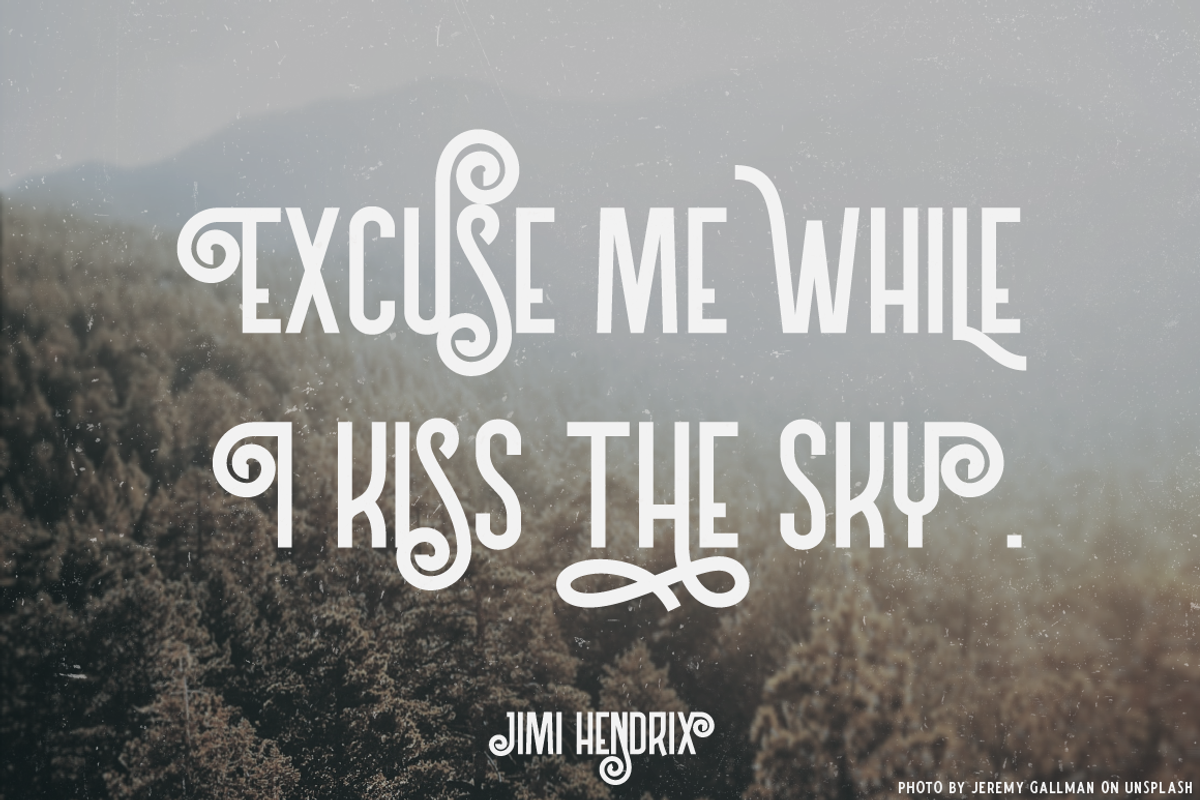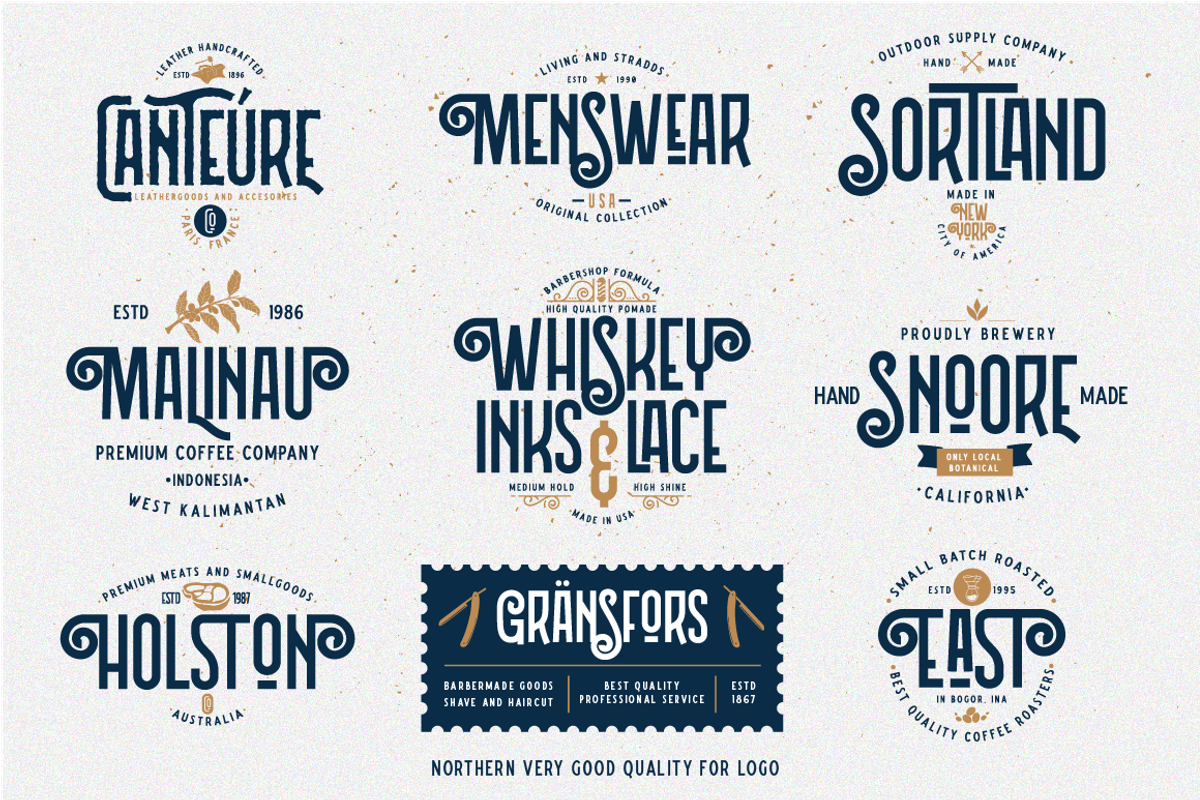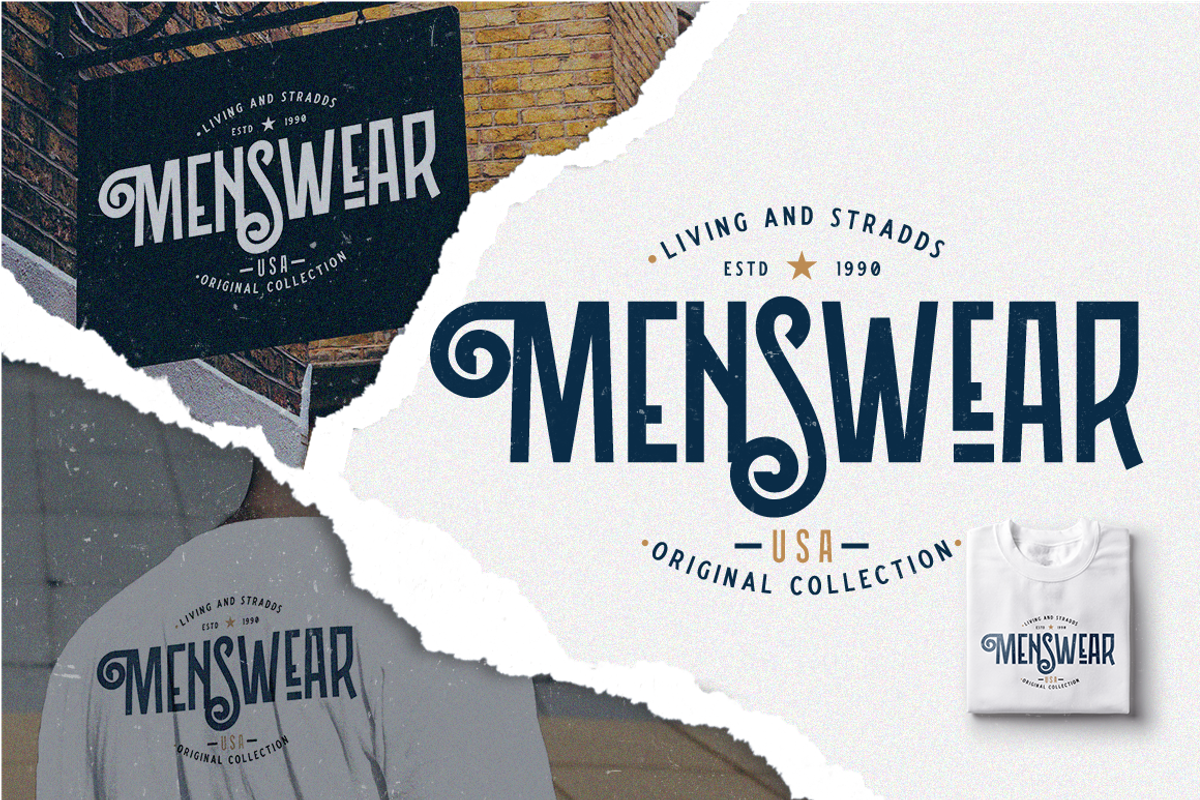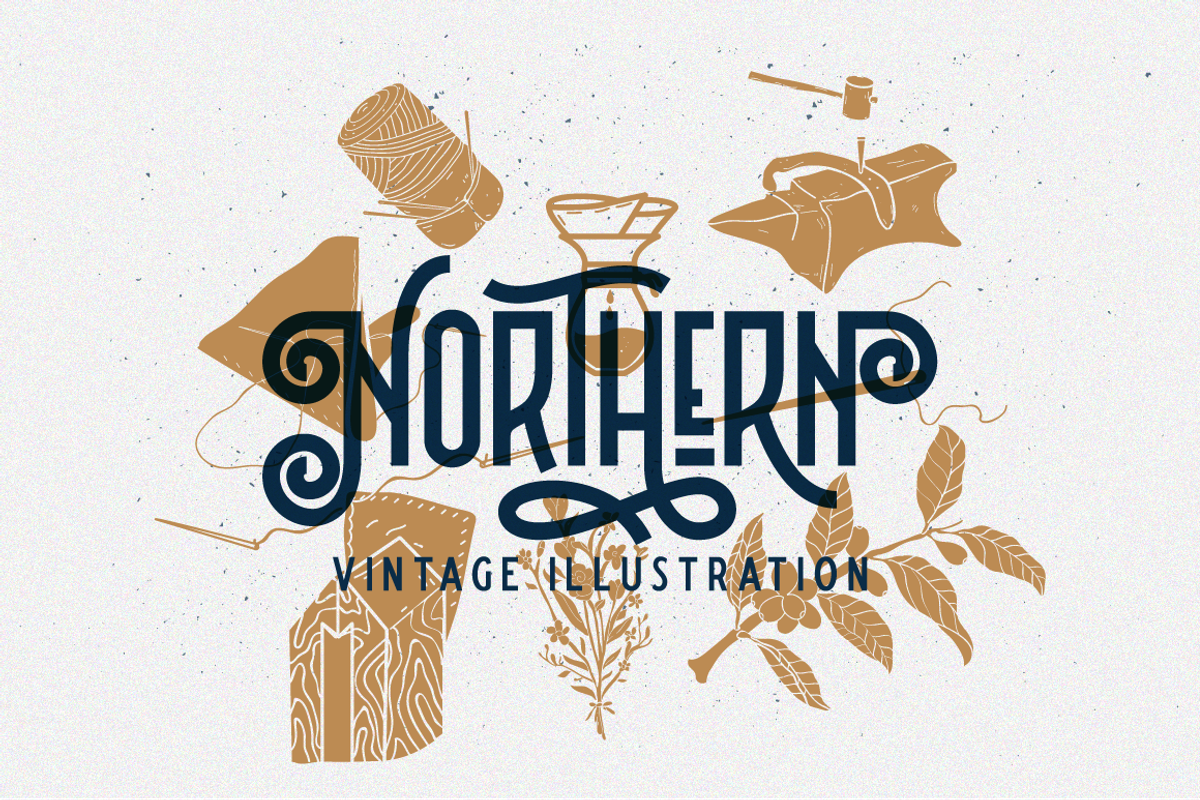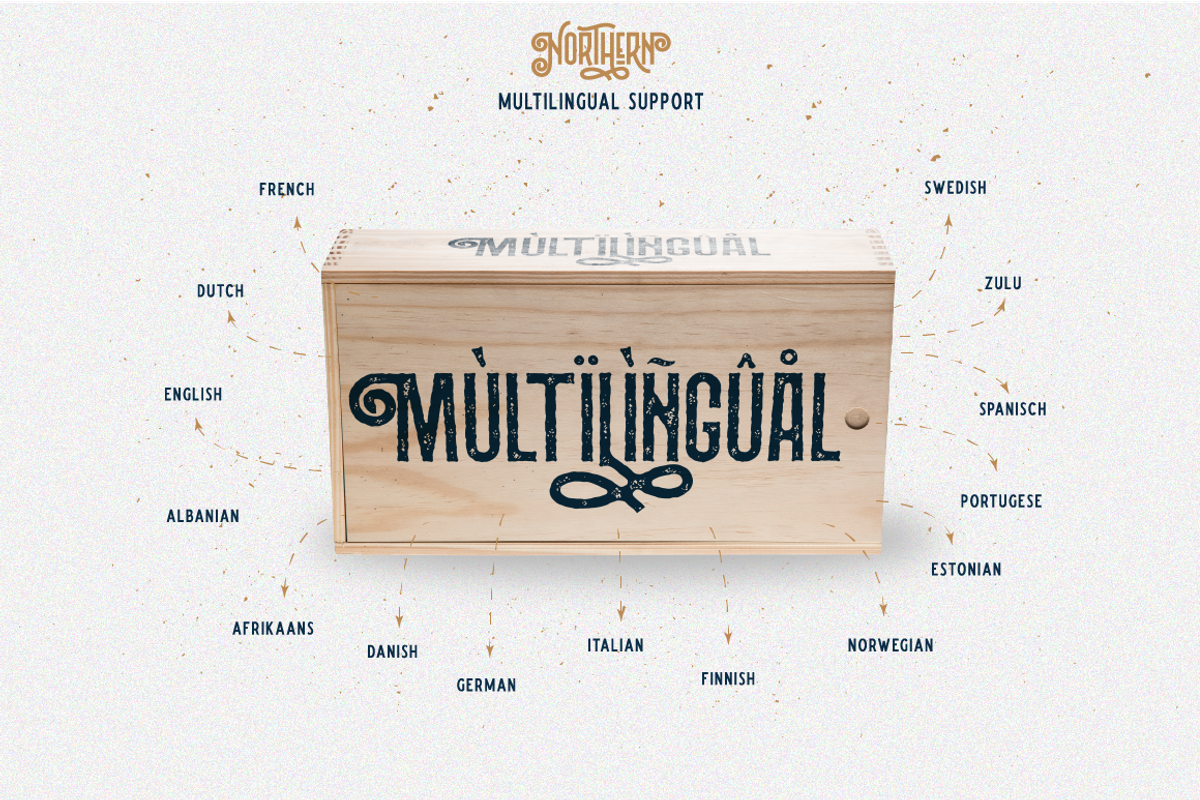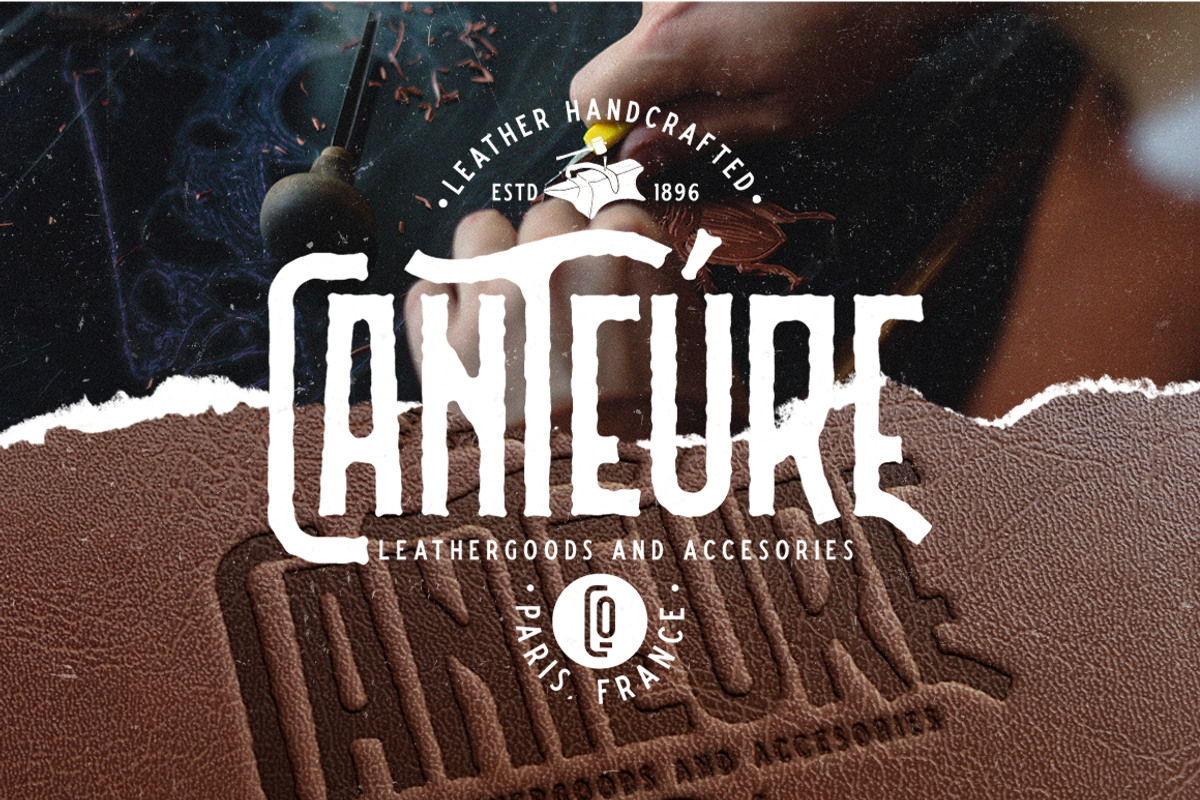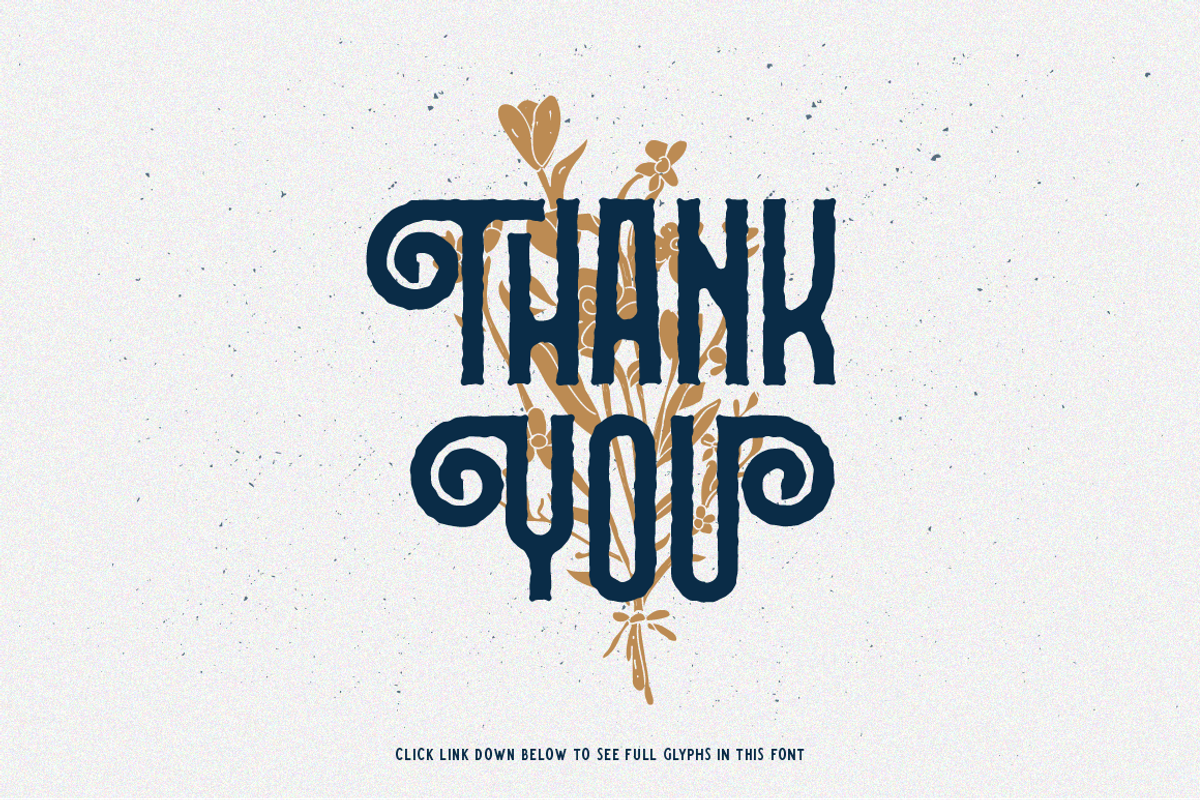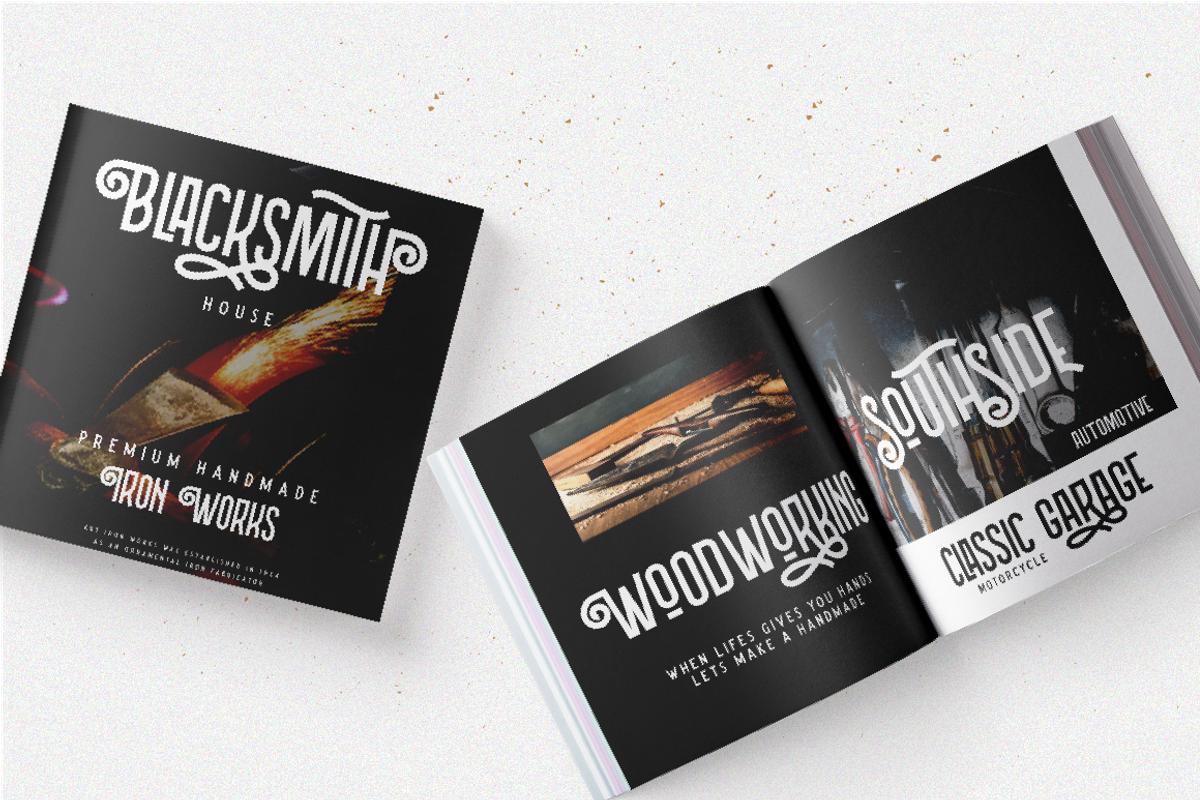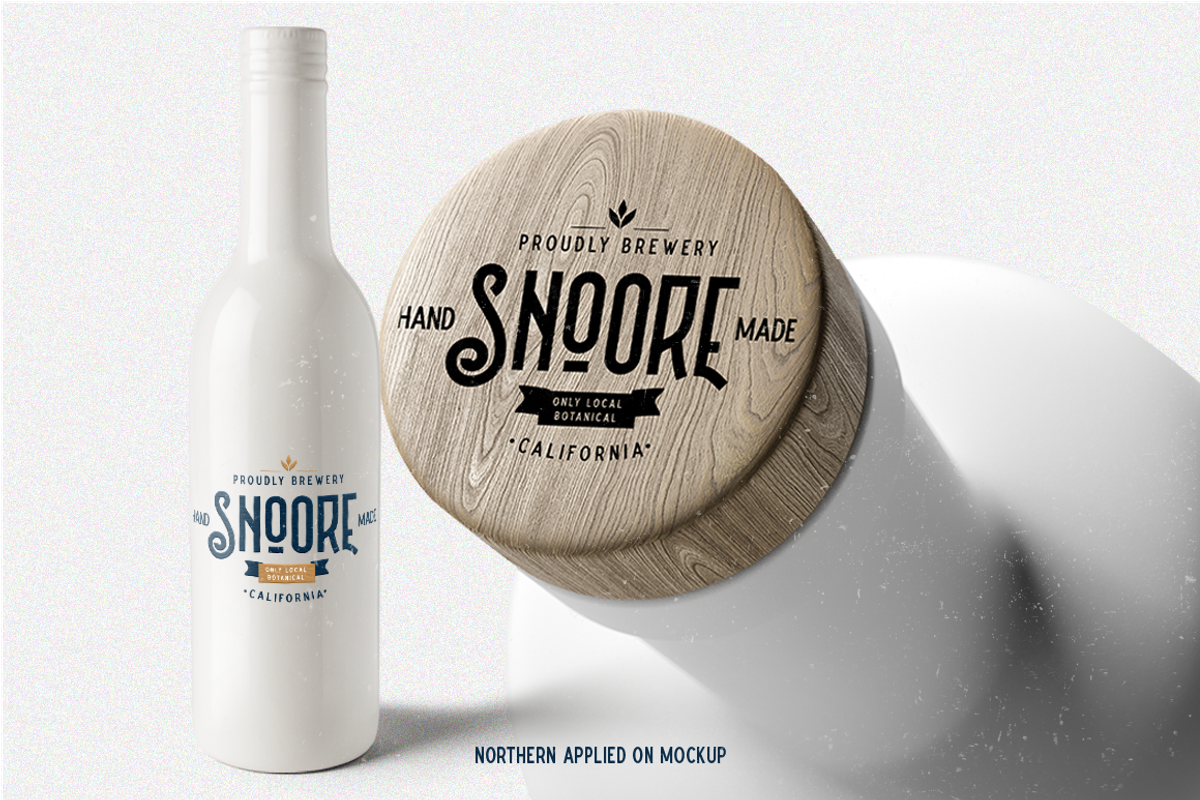
Northern Vintage Monoline Script
Start from our love with vintage design specially vintage labels, sign and packaging, we are super amazed how each letter created so uniquely and how their legibility works in a highest level.
We did some research and cooking each letter carefully till today the final product has arrived.
Let us introduce you to Northern a pack of sans serif fonts, every letter created carefully from sketch to digital. Northern packed up with great features including Multilingual language, ligatures, stylistic alternate, discretionary ligatures to make it more flexible to use and of course to make your design doesn't feel bored.
Northern also comes with perfectly paired sans serif called Cemoro, so you don't have to look what fonts that perfectly used with Northern because thats one of the reason Cemoro come to this world.